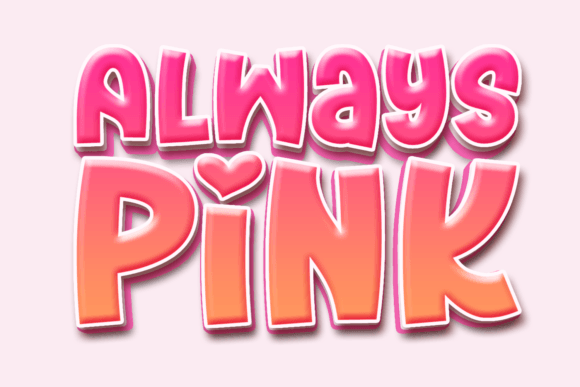
Always Pink: A Whimsical Display Font
In the crowded world of digital design, standing out often comes down to a single choice: the typeface. Always Pink is more than just a collection of letters; it is a mood, an attitude, and a visual statement that brings immediate warmth to any project. This delightfully whimsical display font is designed to infuse an element of charm into designs that might otherwise feel sterile or generic. Whether you are crafting a logo for a boutique bakery, designing a wedding invitation, or creating social media graphics for a lifestyle blog, Always Pink offers a distinctively quirky aesthetic that brims with personality.
The allure of this font lies in its ability to elevate creative projects by bathing them in a glow of originality. It does not simply convey information; it evokes emotion. By trusting Always Pink to transform your layouts, you deliver results that audiences will instantaneously fall for, creating an instant connection through visual storytelling.
What Makes Always Pink Unique?
At its core, Always Pink is a display typeface, meaning it is engineered for headlines, titles, and short phrases rather than long blocks of body text. Its defining characteristic is a playful, hand-drawn quality that feels organic and human. Unlike rigid, geometric sans-serifs or traditional serifs, this font features irregular line weights, bouncy curves, and a slight asymmetry that mimics the natural flow of handwriting.
The "quirky" nature of the font is intentional. Each character has been crafted to look slightly different from the next, avoiding the robotic repetition found in standard fonts. This variation creates a sense of movement and energy. When you apply Always Pink to a design, it immediately signals creativity and approachability. It suggests that the brand or message behind the text is friendly, accessible, and unafraid to be a little bit different.
Key Characteristics of the Typeface
- Whimsical Structure: The letterforms feature soft edges and playful loops that soften the overall tone of a design.
- High Personality: Every glyph carries a unique flair, making the text feel like it was sketched specifically for the project.
- Versatile Charm: While distinctly styled, the font remains legible enough for headers, ensuring the message isn't lost in the artistry.
- Emotional Resonance: The name and style evoke feelings of joy, nostalgia, and warmth, making it perfect for brands targeting emotional connections.
Who Should Use This Font?
The appeal of Always Pink extends across a wide demographic of creators, from beginners just starting their design journey to seasoned professionals looking to refresh their portfolio. Its intuitive nature makes it an excellent choice for those who may not have formal training in typography but want their work to look polished and professional.
For small business owners, particularly in the lifestyle, fashion, beauty, and food industries, this font serves as a powerful branding tool. Imagine a coffee shop owner creating a chalkboard menu or a handmade jewelry designer launching a new collection. Using Always Pink instantly communicates the handmade, artisanal nature of their products. It tells the customer, "This was made with love and care."
Freelancers and marketers also find value in this typeface. In an era where attention spans are short, a headline written in Always Pink can stop a scroll on Instagram or capture the eye on a landing page. It breaks the monotony of standard web typography, inviting users to engage further with the content. Educators and hobbyists alike can use it to create engaging worksheets, party invitations, or scrapbook layouts that feel personal and special.
Practical Applications and Use Cases
Understanding where to apply Always Pink is just as important as understanding what it is. Because it is a display font, it shines brightest when used sparingly and strategically. Here are several realistic scenarios where this font excels:
- Social Media Graphics: Create eye-catching quotes, sale announcements, or event teasers for platforms like Instagram, Pinterest, and TikTok. The font's readability at larger sizes ensures your message pops against colorful backgrounds.
- Event Invitations: From bridal showers to birthday parties, Always Pink adds a touch of celebration and fun to printed or digital invites. It sets the tone for a joyful gathering before the guest even arrives.
- Product Packaging: For brands selling candles, soaps, or confectionery, using this font on labels or boxes enhances the perceived value and uniqueness of the product.
- Blog Headers and Banners: Lifestyle bloggers can use it for post titles or section dividers to maintain a consistent, warm voice throughout their website.
- Mercerized Merchandise: Design t-shirts, tote bags, or mugs with slogans that need a friendly, non-corporate vibe. The font works exceptionally well on merchandise meant to express individuality.
Consider a beginner blogger writing about sustainable living. Instead of a stark, black-and-white header, they might choose Always Pink for their main title to suggest growth, nature, and optimism. Or think of a freelance graphic designer pitching a rebrand to a children's bookstore. Presenting a mock-up with Always Pink demonstrates an understanding of the target audience and the desire to make reading a magical experience.
By embracing the quirks and the warmth of this display font, you open the door to endless possibilities. Whether you are a small business owner looking to build a brand identity or a hobbyist wanting to add flair to a personal project, Always Pink stands ready to transform your vision. Trust in its ability to deliver effortless whimsy, and watch as your designs come alive with a glow of originality that resonates with everyone who sees them.